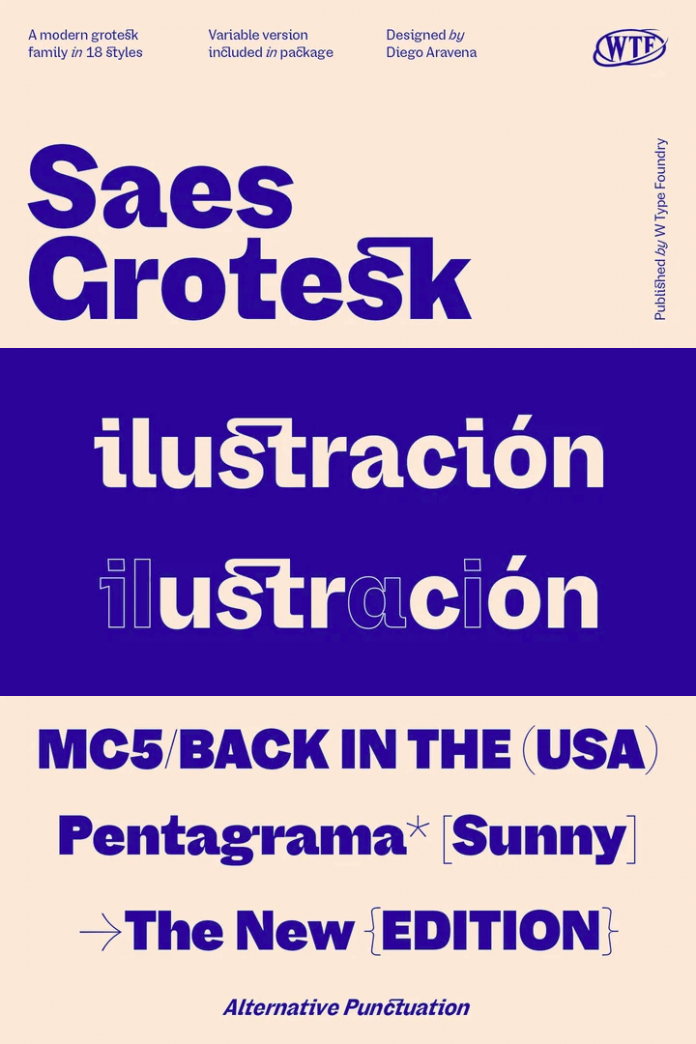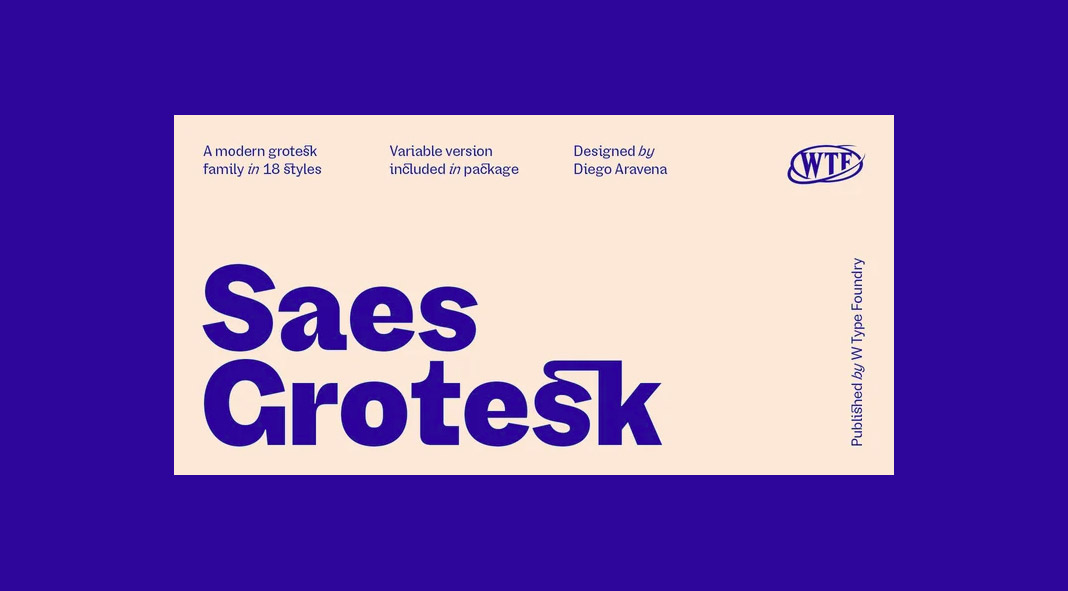
Saes Grotesk, a unique sans-serif font family packed with numerous typographic features.
Designed in 2021 by Diego Aravena Silo of foundry W Type, Saes Grotesk is a new sans-serif font family that masterfully combines the beautiful imperfections of some of the first sans serifs with the trend and standards of today’s typography.
Some letter endings like “a”, “c”, or “e” were projected a bit further in order to provide a more contemporary feel. On the other hand, the typeface still has this vintage vibe, which is a real eye-catcher. Saes Grotesk includes plenty of weights ranging from Thin to Heavy plus matching italics and variable styles. Just click on the following link or check out the images below to learn more about this unique font family.